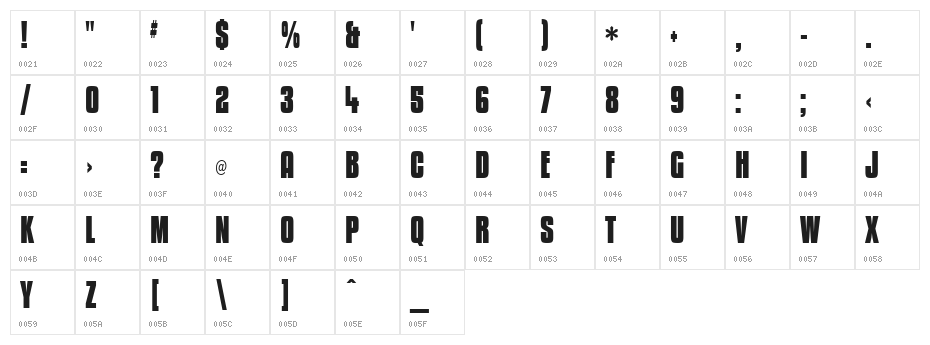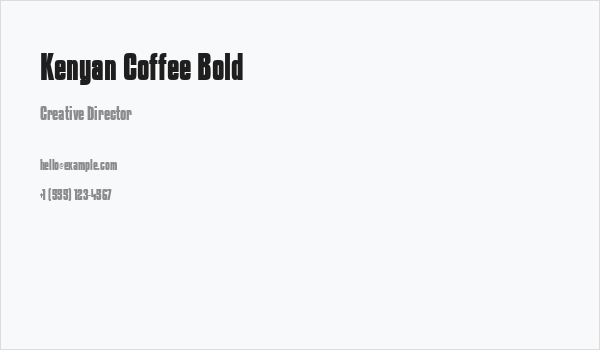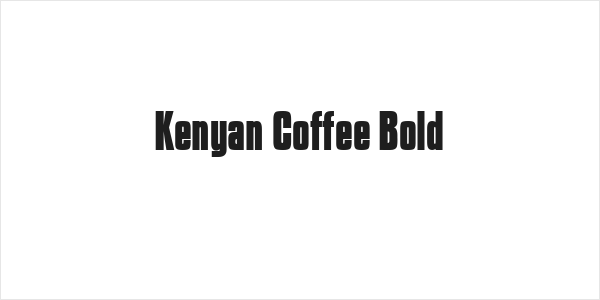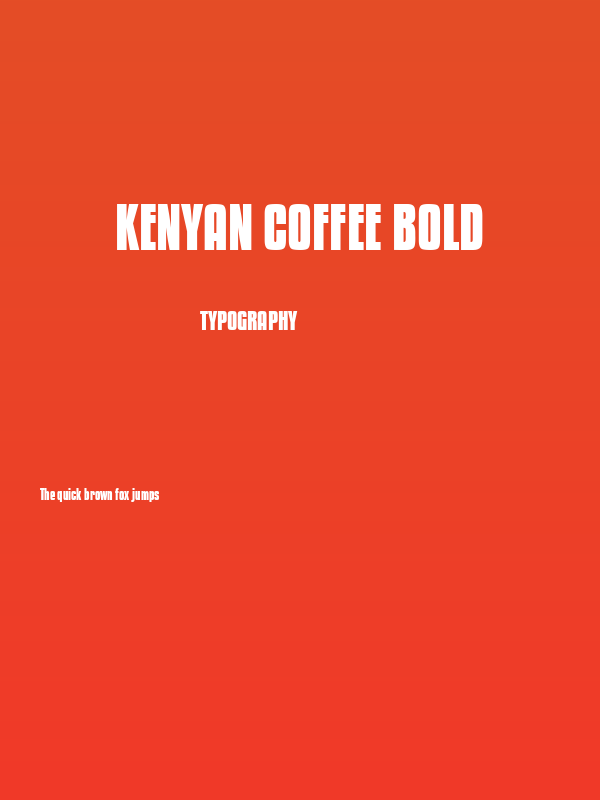
Kenyan Coffee Bold Font
Kenyan Coffee Bold Description
This bold, impactful font features thick, uniform strokes that convey strength and assertiveness. The characters are tightly spaced, enhancing its bold appearance. The uppercase letters are particularly striking, with a strong geometric influence that gives them a modern and robust look. The lowercase letters maintain the same weight and style, ensuring consistency throughout. Numbers and special characters are equally bold, making them stand out in any design. This font is ideal for creating attention-grabbing headlines, posters, and branding materials where a strong visual impact is desired.
| Proposed Projects | Ideal for posters, headlines, branding, and any project requiring a strong visual impact. |